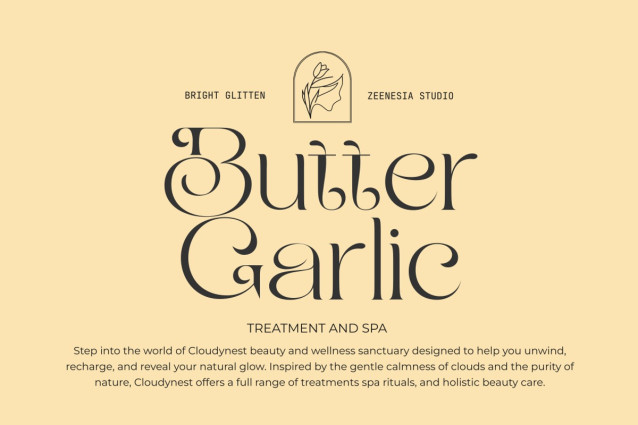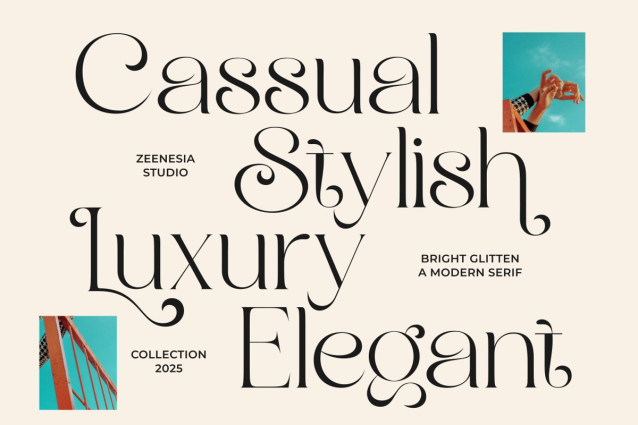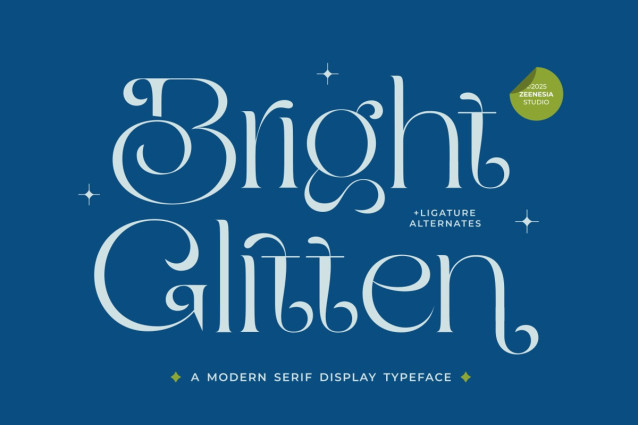
Bright Glitten Font
Bright Glitten Font is a modern serif display typeface that shines with elegance and creativity. Designed with stylish curves, graceful swashes, and unique ligature alternates, this font captures attention instantly. Its refined details and glamorous personality make it perfect for high-end branding, editorial design, wedding invitations, packaging, and any project that needs a touch of luxury and sparkle.
With its balance of sophistication and playful charm, Bright Glitten transforms ordinary text into a stunning visual statement.